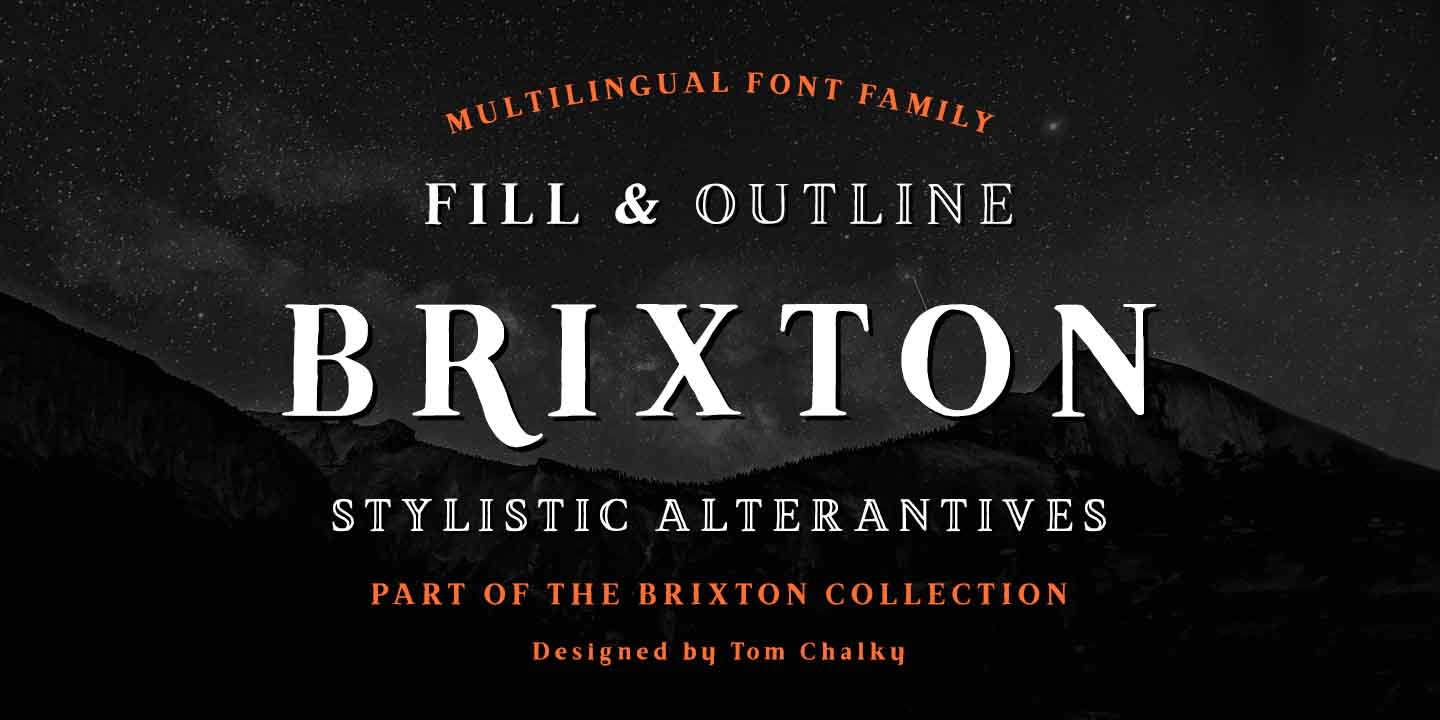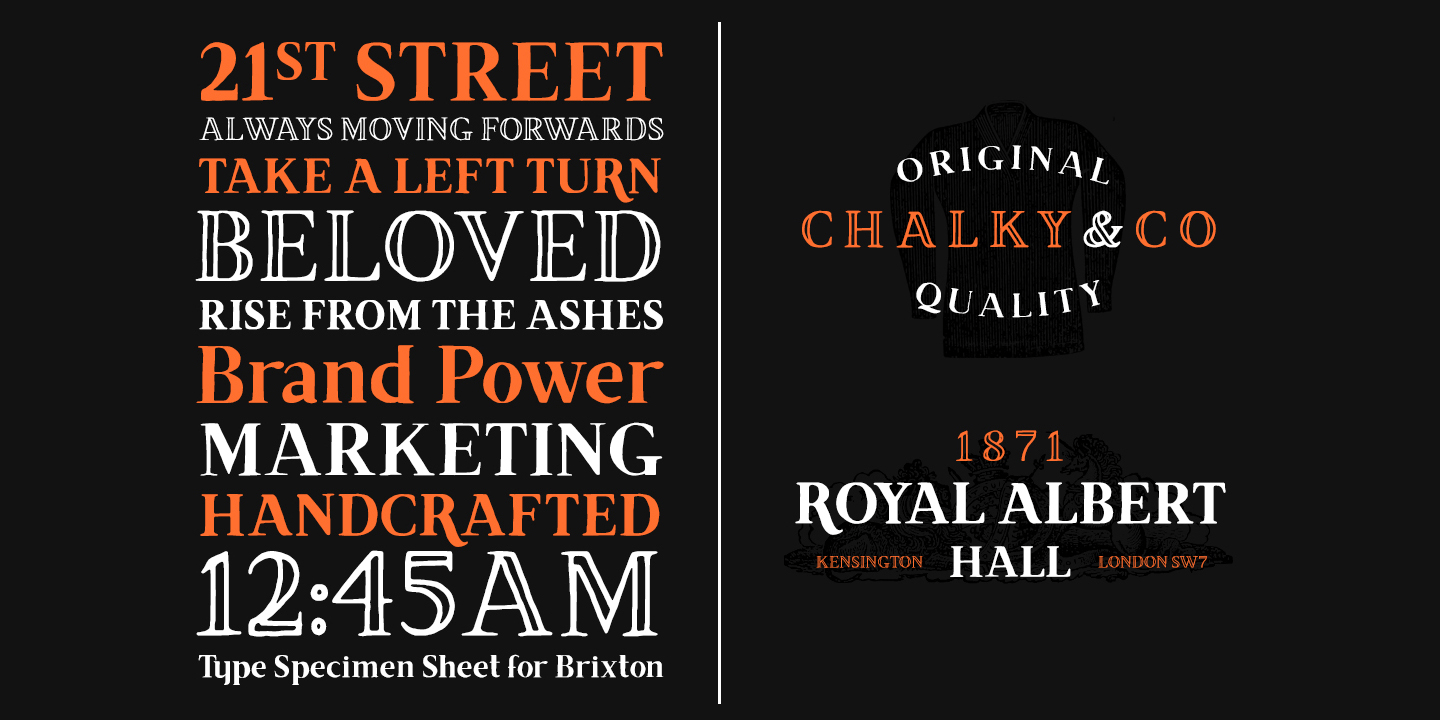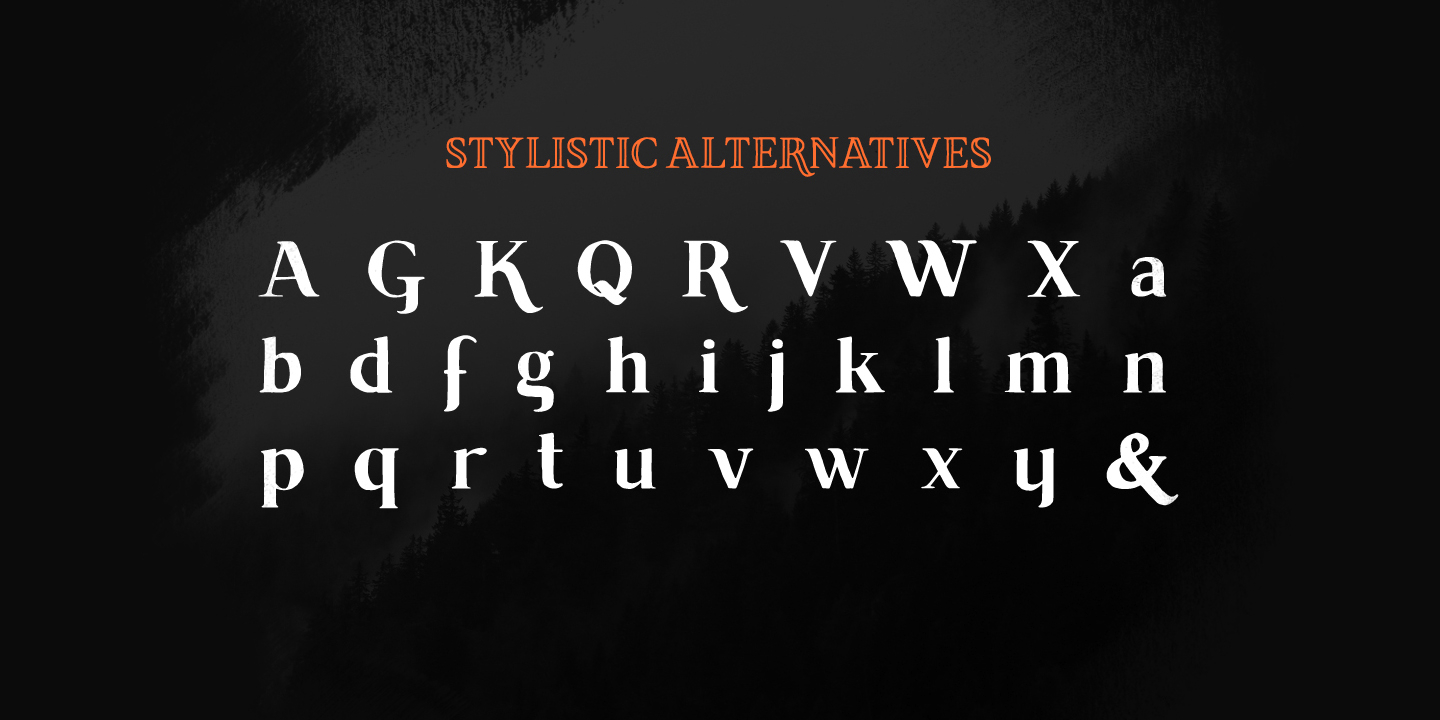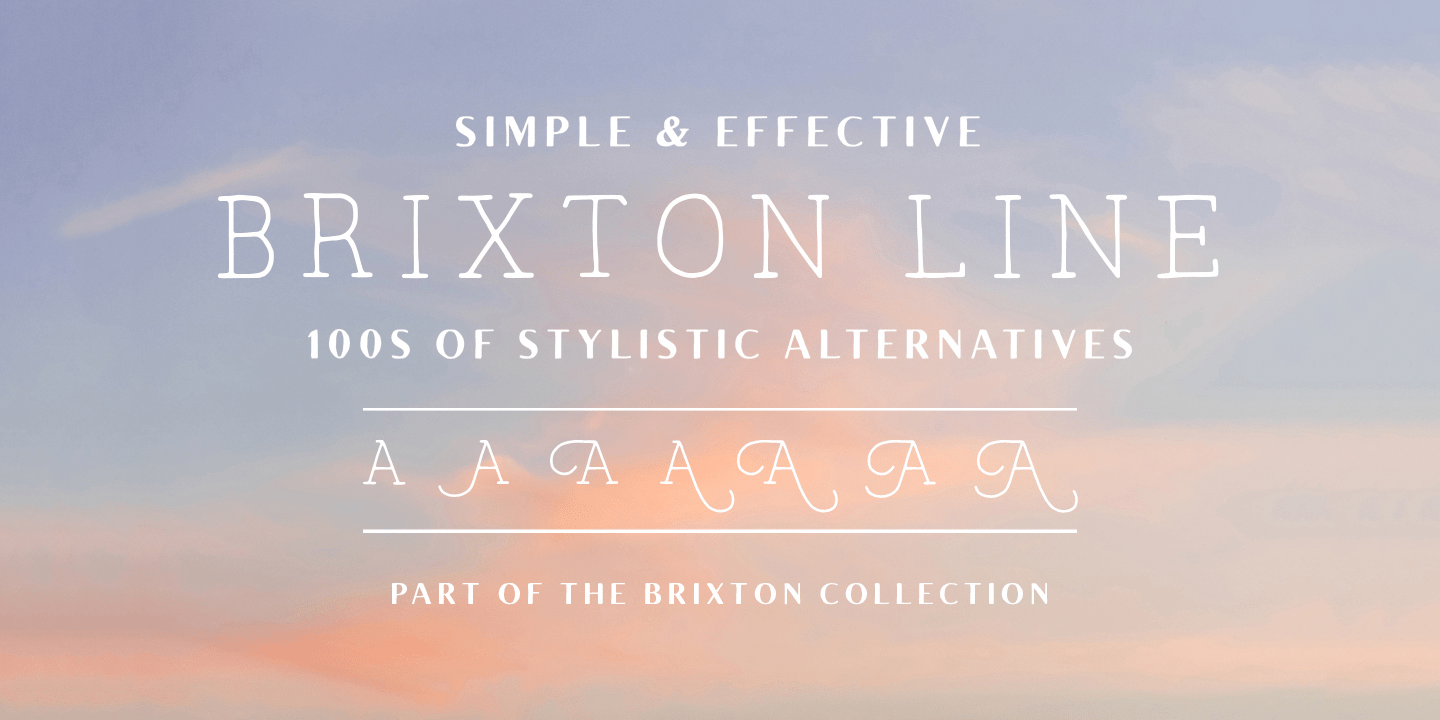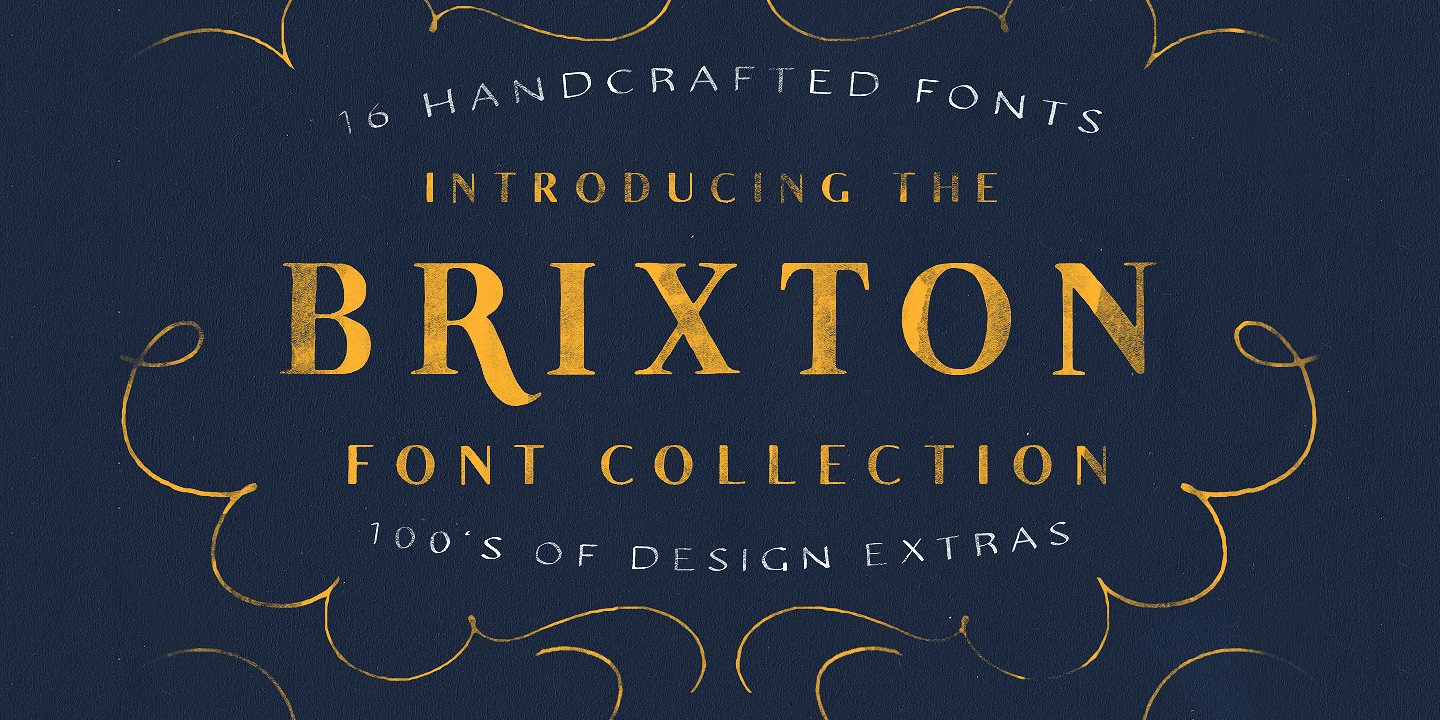
The Brixton Collection
About The Brixton Collection
Introducing the whole Brixton Collection – A System of 16 Lovingly Handcrafted Fonts This stunning collection of fonts has been something that I have been tinkering with since I started font design. The original Brixton font was one of my first ever…